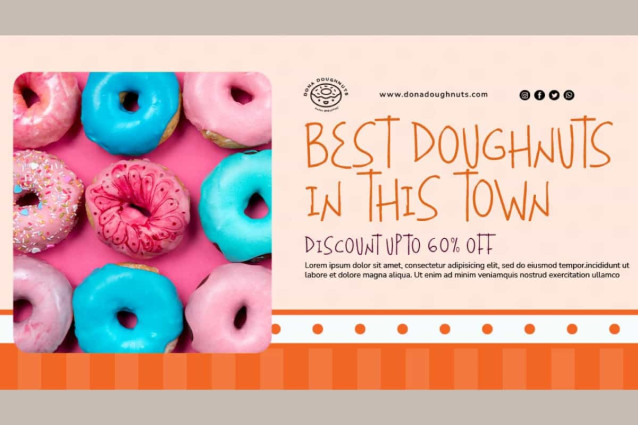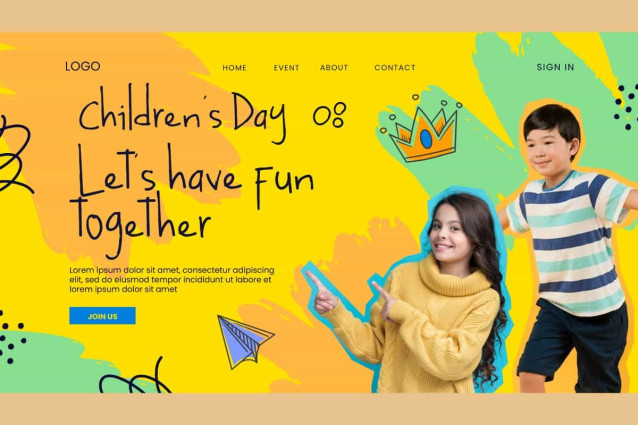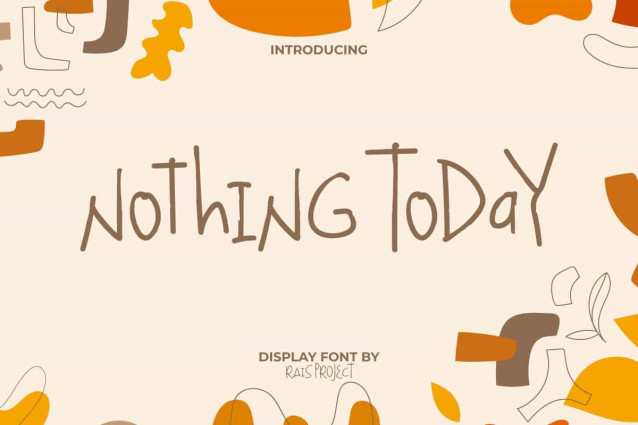
Nothing Today Font
Nothing Today Font is a modern fun yet stylish handwriting display font by RaisProject. This font has a playful character with thin and slightly irregular letter characters. So, it can be used in many design, such as custom design, brand image, cover, invitation, label, menu, poster, product packaging, quotes, stationery, web, and more!
Nothing Today Font includes a full set of Uppercase and Lowercase Letters, Numerals, Punctuation, and Symbol. This unique font will be suitable for various industries, such as kids stuff, accessories, advertisement, cafe, event, fashion, photography, printing, publishing, restaurant, etc.